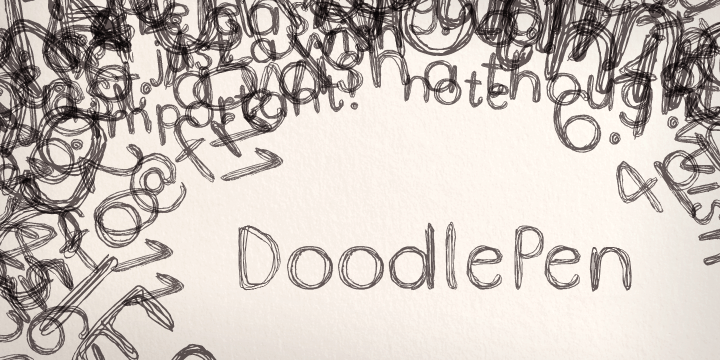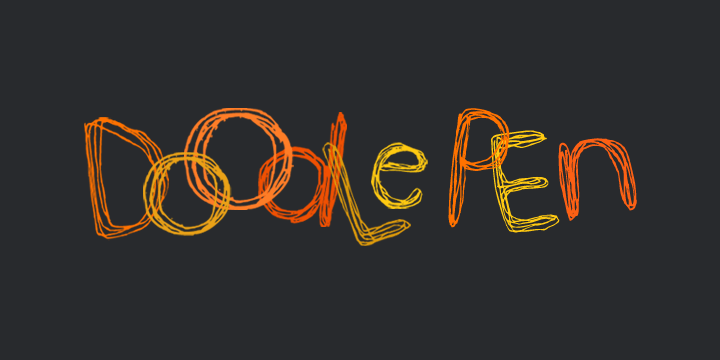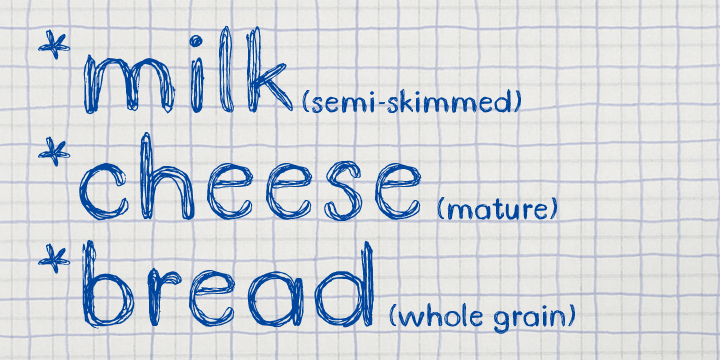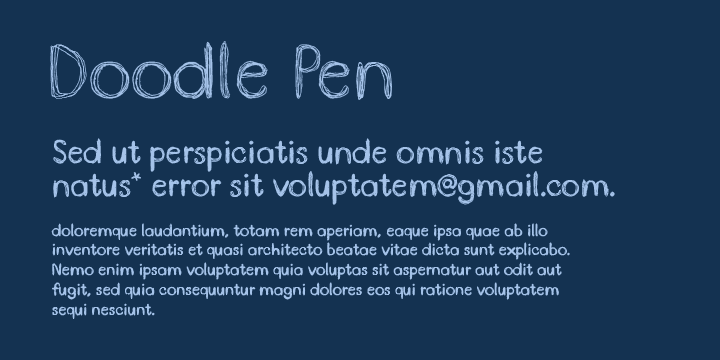
Doodle Pen
Buy NowDoodle Pen is a whimsical hand-drawn typeface. Characters are based on ballpoint pen multi-line drawings creating a scribbled texture and soft edges. This typeface will work well for headings, short paragraphs and scrap-book style designs.
Doodle Pen is extended, containing West European diacritics making it suitable for multilingual environments and publications.